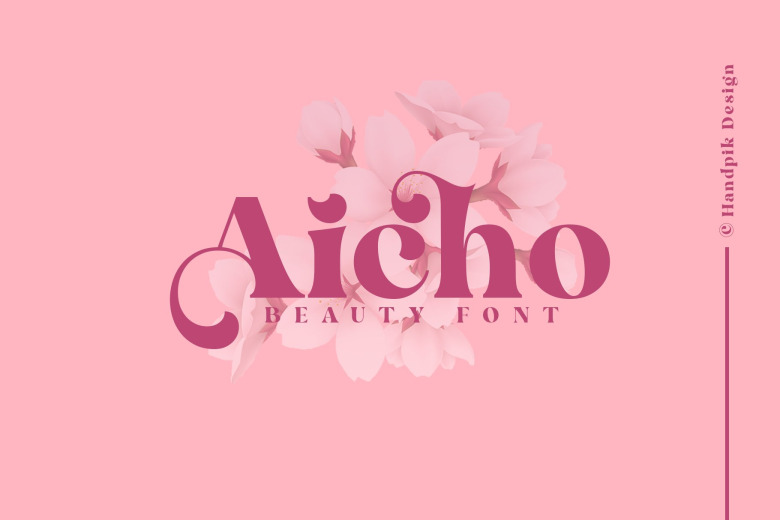
Aicho Font
Aicho is a beautiful and bold serif font. This font is suitable for invitation cards, decorations, clothing products, greeting cards and so much more.